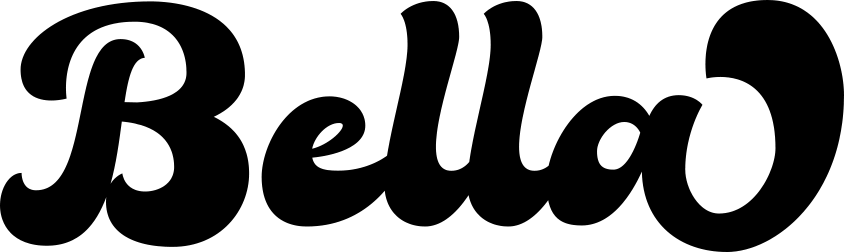
Bella Font
Bella font allows a fancy group design in your posters and flyers. The smooth and thick lines that can be seen in all the characters indicate that you can have a great deal with your customers to design T-shirts, kid accessories, and animated posters.
In addition, this vintage and script font is recommended for designing toy packaging and many girly themes to increase your sales.